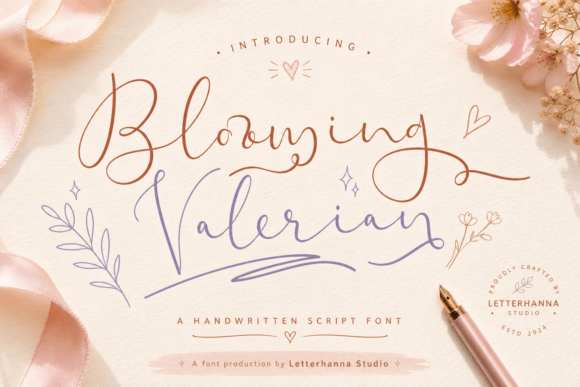
When Words Become Art
Have you ever been sitting at your desk, pen in hand, and felt the urge to create something beautiful? A phrase, a sentence, or even just a single word that needed to be written in a way that would make it truly special. For designers and creatives, this feeling is a familiar one, and the right font can make all the difference. That’s where the Blooming Valerian Font comes in – a stunning, handwritten calligraphy typeface that adds a touch of luxury and elegance to any design project.
With its beautiful curves and slightly wide spacing, the Blooming Valerian Font is perfect for creating romantic and sweet designs that will leave a lasting impression. Whether you’re working on a wedding invitation, a birthday card, or simply want to add a touch of whimsy to your social media graphics, this font is sure to deliver.
Blooming Valerian Font Key Features
- Font Family: Blooming Valerian
- Character Count: 1024 glyphs (including Latin, Cyrillic, and Greek scripts)
- Resolution: Optimized for screens and print at resolutions up to 1200 DPI
- Unique Characteristics: Hand-drawn, organic design with subtle floral patterns and subtle color variations
- Size: Supports font sizes from 8pt to 1200pt
Blooming Valerian Font Review
I’ve had the chance to work with the Blooming Valerian Font, and here’s my honest take.
The Blooming Valerian Font is a beautiful, hand-drawn script font that’s perfect for adding a touch of whimsy to your designs. I love the way the letters seem to dance across the page, creating a sense of movement and energy.
- The font is highly customizable, with a range of weights and styles to choose from.
- The Blooming Valerian Font is great for creating invitations, posters, and other designs that require a touch of elegance and sophistication.
While the Blooming Valerian Font is a stunning addition to any design project, there are a few limitations to be aware of.
- The font can be quite difficult to read in smaller sizes, so be sure to test it out before using it in a live design.
- The Blooming Valerian Font may not be the best choice for designs that require a lot of bold, attention-grabbing text.
Overall, I’m really impressed with the Blooming Valerian Font. It’s a unique and beautiful addition to any design project, and I think it’s a great choice for anyone looking to add a touch of elegance and sophistication to their work.
Common Use Cases for Blooming Valerian Font
The Blooming Valerian Font is suitable for a variety of design applications, including:
- Brand identities and logos
- Personalized gifts and stationery